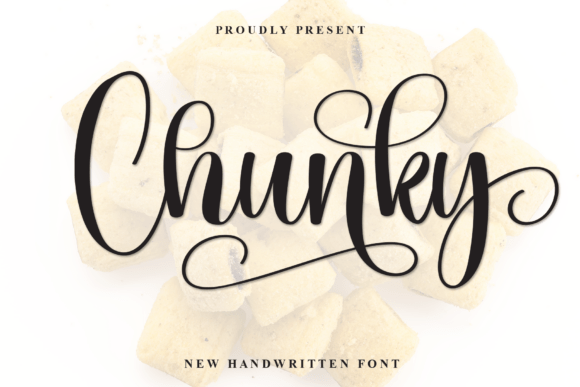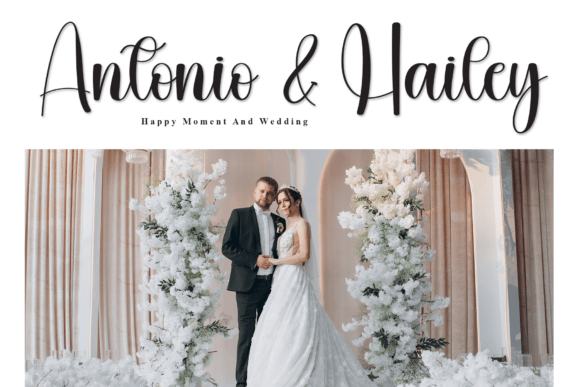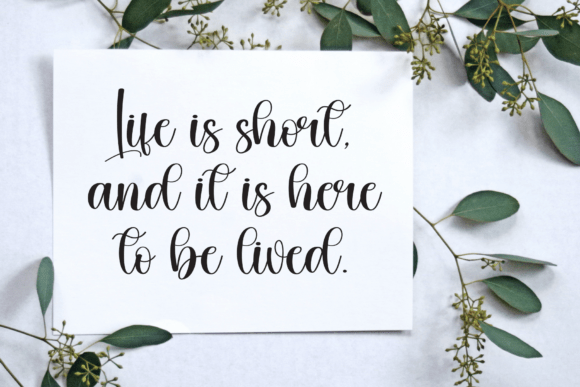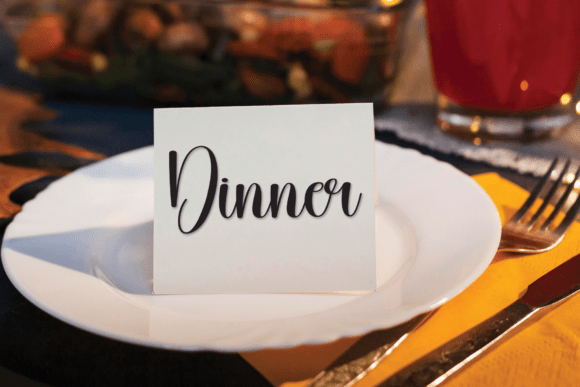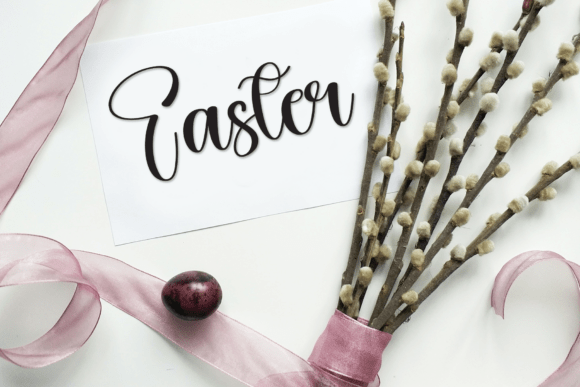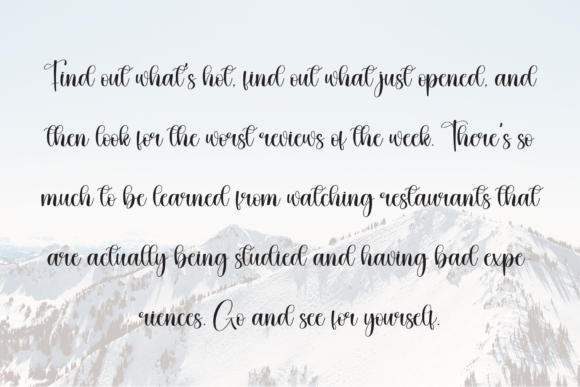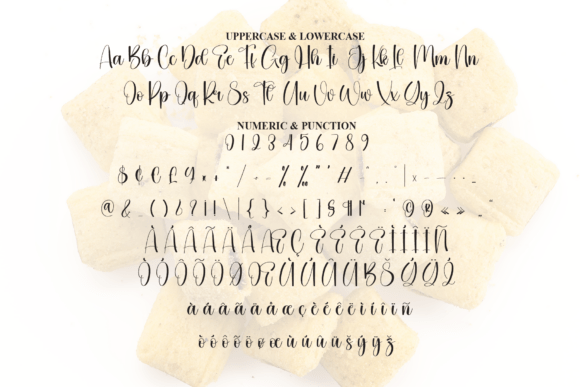
Unleashing Your Creativity with Chunky Font
You know that moment when you’re brainstorming ideas for a project and you see a vision of bold, playful letters that perfectly capture the essence of your brand? That’s exactly what Chunky Font is all about – giving you the tools to bring your creative ideas to life. This special font is designed to add a touch of personality to any project, from wall displays to wedding invitations, and social media logos.
As a designer, you know how valuable it is to have the right tools at your fingertips. Chunky Font is more than just a font – it’s a way to express yourself and connect with your audience on a deeper level. With its versatility and ease of use, this font is a must-have for any designer looking to take their work to the next level.
Key Features of Chunky Font
- Unique Characteristics: Chunky Font is known for its distinctive, bold, and playful style, making it ideal for use in headings, titles, and other attention-grabbing applications.
- Legibility: Despite its bold appearance, Chunky Font is designed to be highly legible, even at small font sizes, making it suitable for a wide range of applications, from body text to display text.
Chunky Font Review
Overall, I think Chunky Font is a fun, attention-grabbing font that can add some personality to your designs. ✨ It’s great for headings, titles, and any other text that needs a little extra flair. The bold lines and chunky texture give it a playful, energetic feel that can really make your designs stand out.
- Fun and playful texture adds visual interest
- Great for headings and titles
- Can be used to add personality to designs
However, there are a few limitations to consider. ⚠️ The font can be a bit overwhelming if used in large blocks of text, and it may not be the best choice for body copy or any text that needs to be easily readable. Additionally, the font may not be suitable for designs that require a more professional or sleek look.
In terms of overall impression, I think Chunky Font is a great choice for designs that need a little extra flair, but it may not be the best fit for every project. With some careful use, it can add a lot of personality to your designs, but it’s worth considering the potential limitations before making it a core part of your design.
Getting the Most Out of Chunky Font
To get the most out of chunky font, use it sparingly and in strategic locations such as headings or titles. Avoid using it for large blocks of text, as it can be overwhelming. Experiment with different font sizes and styles to create visual interest.
Chunky font is commonly used in: headings, titles, and signage; to create a bold and eye-catching effect; in designs that require a vintage or retro feel; and in text-based graphics such as quotes or phrases.